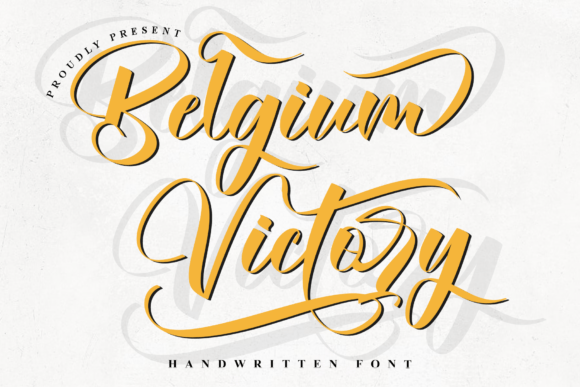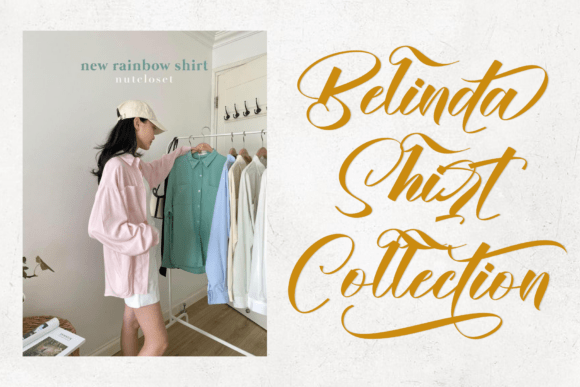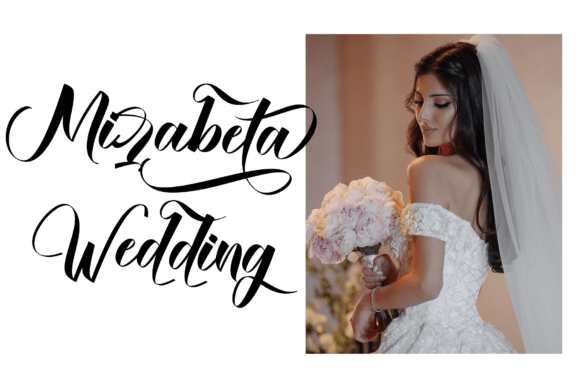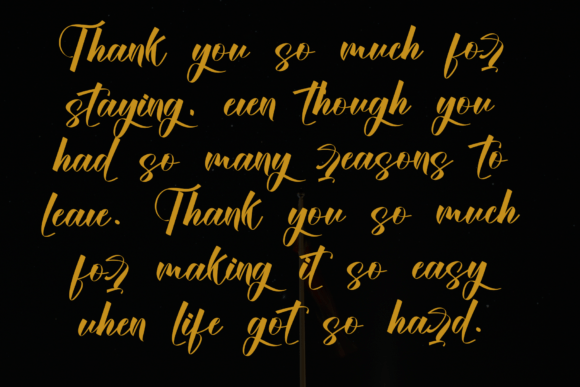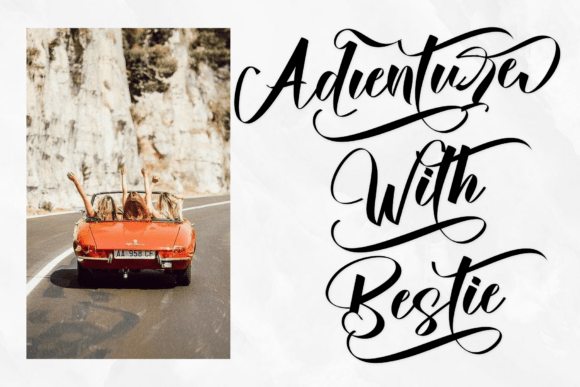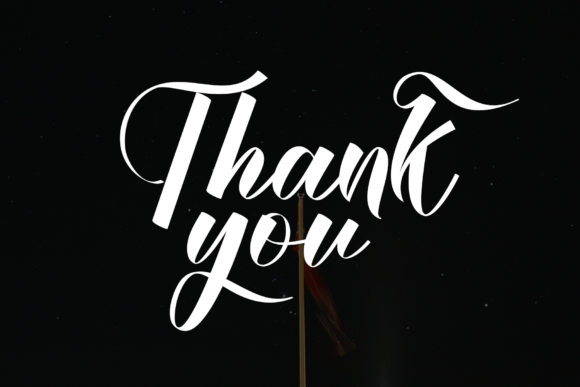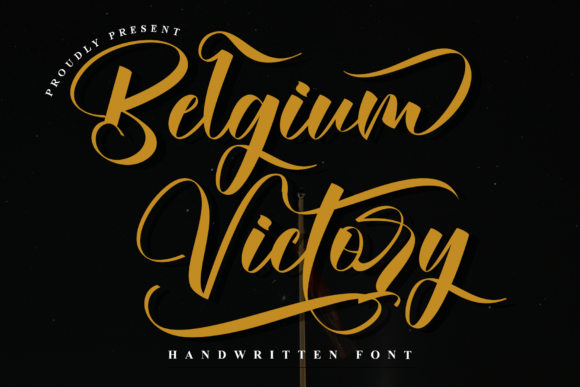
Introducing Belgium Victory Font: Elegance Meets Romance
In the world of typography, few fonts manage to capture the essence of elegance and romance as effortlessly as the Belgium Victory font. This exquisite handwritten script font is a masterpiece of modern sophistication and classic allure, making it an indispensable tool for designers and crafters looking to infuse their projects with a touch of luxury and personality.
The Essence of Belgium Victory
Belgium Victory is more than just a font – it’s an experience. Its fluid, sweeping strokes and nuanced line variations are reminiscent of authentic handwriting, bringing a sense of warmth and intimacy to any design. The font’s graceful ascenders rise with confidence, while its gently looped descenders add a delicate charm, creating a harmonious rhythm that feels both polished and organic.
Designed with versatility in mind, Belgium Victory is perfect for a wide range of applications. Whether you’re working on branding, wedding invitations, feminine logos, social media content, or luxurious product packaging, this font is sure to make your designs stand out. Each letterform exudes personality and warmth, bringing a personal, stylish touch to any project.
Refined Elegance for Sophisticated Designs
The refined elegance of Belgium Victory makes it an ideal choice for projects that aim to convey intimacy, beauty, and class. Its sophisticated appearance is perfect for designers and crafters who want to create luxurious and high-end designs that exude refinement and poise.
Unlock Your Creative Potential
With Belgium Victory, your creative vision is free to flourish with sophistication and style. The font’s elegant appearance and versatile nature make it an indispensable tool for designers and crafters looking to push the boundaries of their creativity. Whether you’re working on a personal project or a client’s brief, Belgium Victory is sure to inspire and elevate your designs.
BELGIUM VICTORY is a perfect fit for designers and crafters who want to add a touch of elegance and romance to their projects. Its unique blend of modern sophistication and classic allure makes it an attractive choice for those looking to create designs that stand out from the crowd.
Key Features of Belgium Victory
- Elegant handwritten script font
- Fluid, sweeping strokes and nuanced line variation
- Graceful ascenders and gently looped descenders
- Perfect for branding, wedding invitations, feminine logos, social media content, and luxurious product packaging
- Refined elegance and sophisticated appearance
In conclusion, Belgium Victory is a stunning handwritten script font that is sure to elevate your designs to new heights. Its unique blend of elegance, romance, and sophistication makes it a versatile and indispensable tool for designers and crafters. With its fluid strokes, nuanced line variation, and refined elegance, Belgium Victory is the perfect choice for anyone looking to add a touch of luxury and personality to their projects.